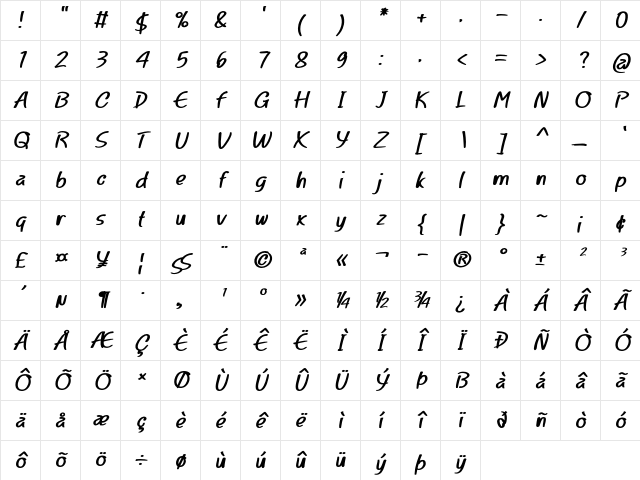
Madame Roi is a composed and adaptable typeface that performs quietly and consistently across a wide range of design contexts. The slanted form adds forward momentum and visual energy. Its bold stroke weight gives it real presence on the page.
Pro Tip: Use Madame Roi for emphasis, pull quotes, and subheadings where its slanted energy can add rhythm to the layout.